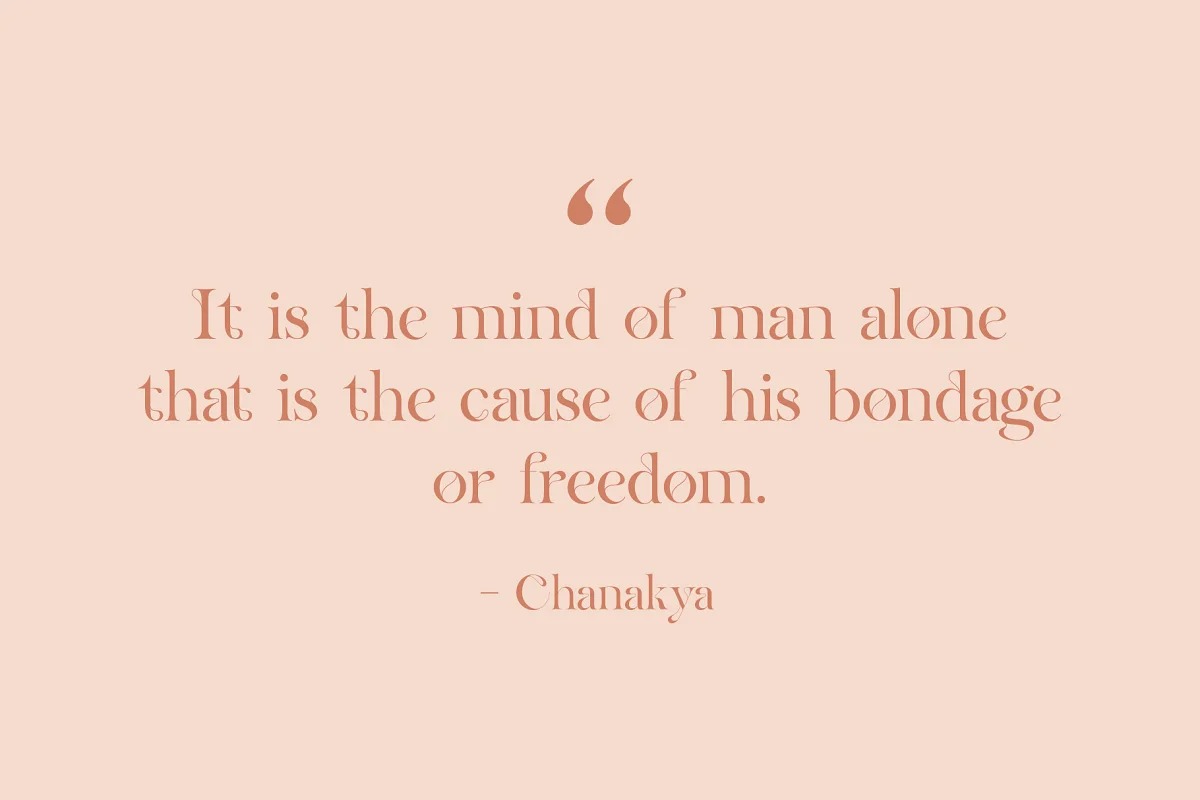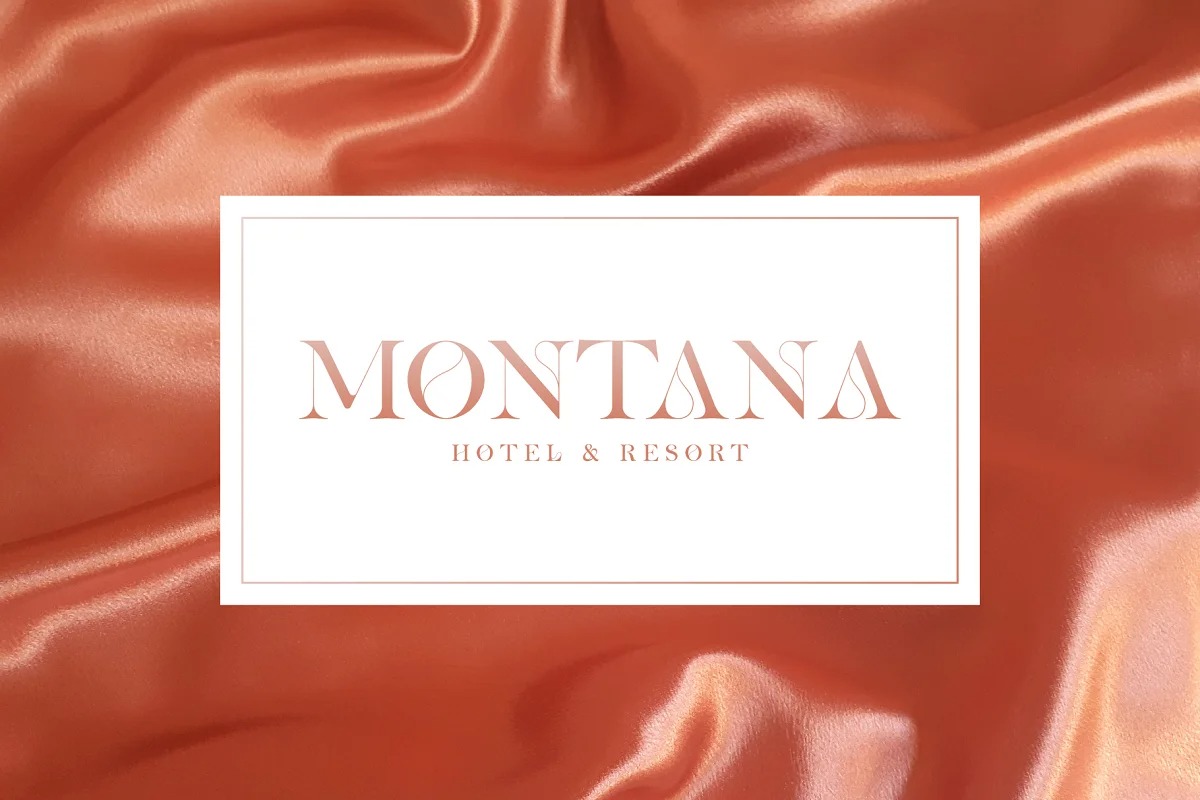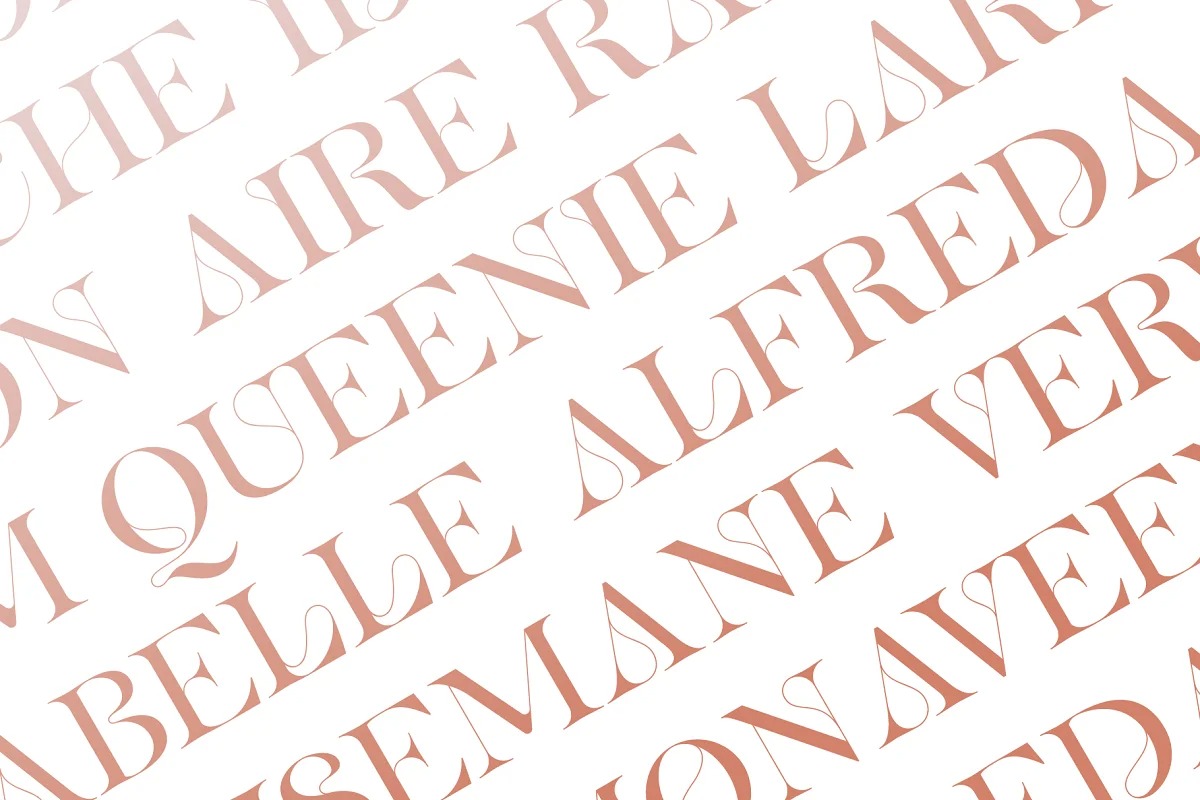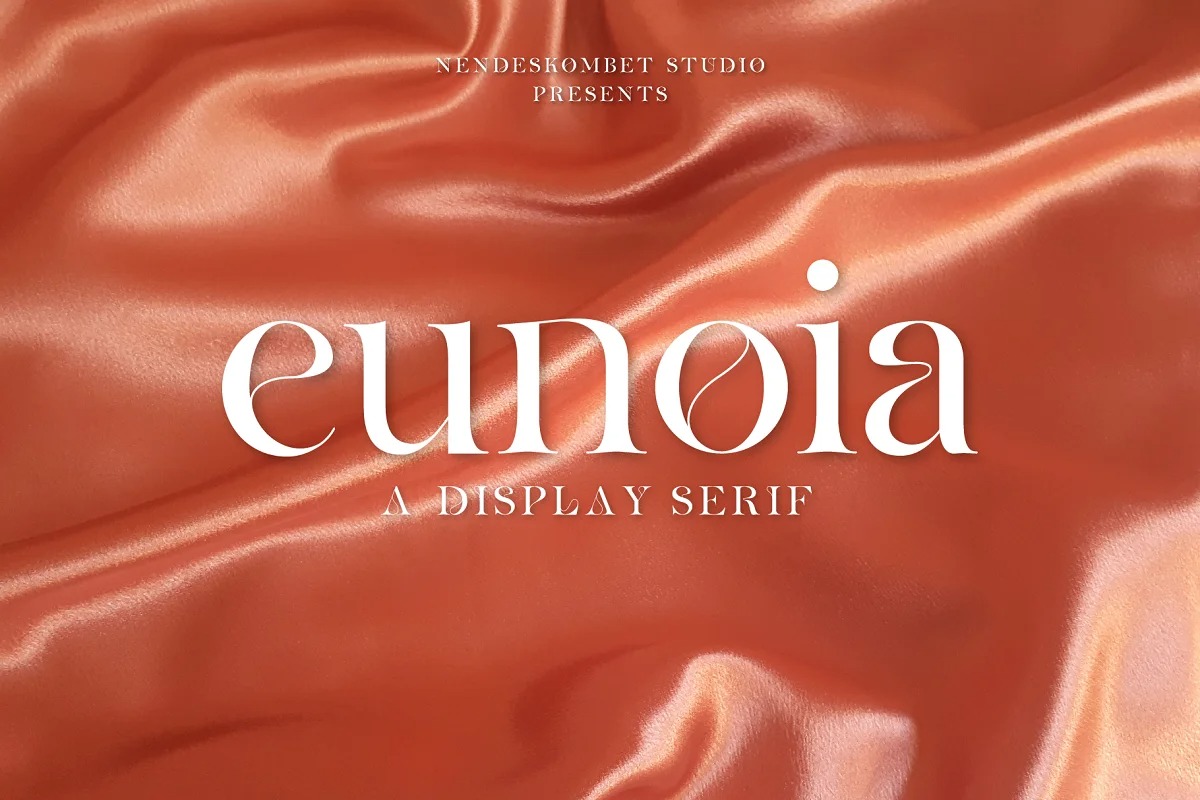
Eunoia Font
Eunoia Serif Font
This typeface is made with the concept of a modern font display that gives a unique impression because it has a curvy shape like waves that is charming and unique. Gallery comes with a full uppercase, lowercase, numbers and punctuation + Multilanguage support. Perfect for anything your creativity takes you.